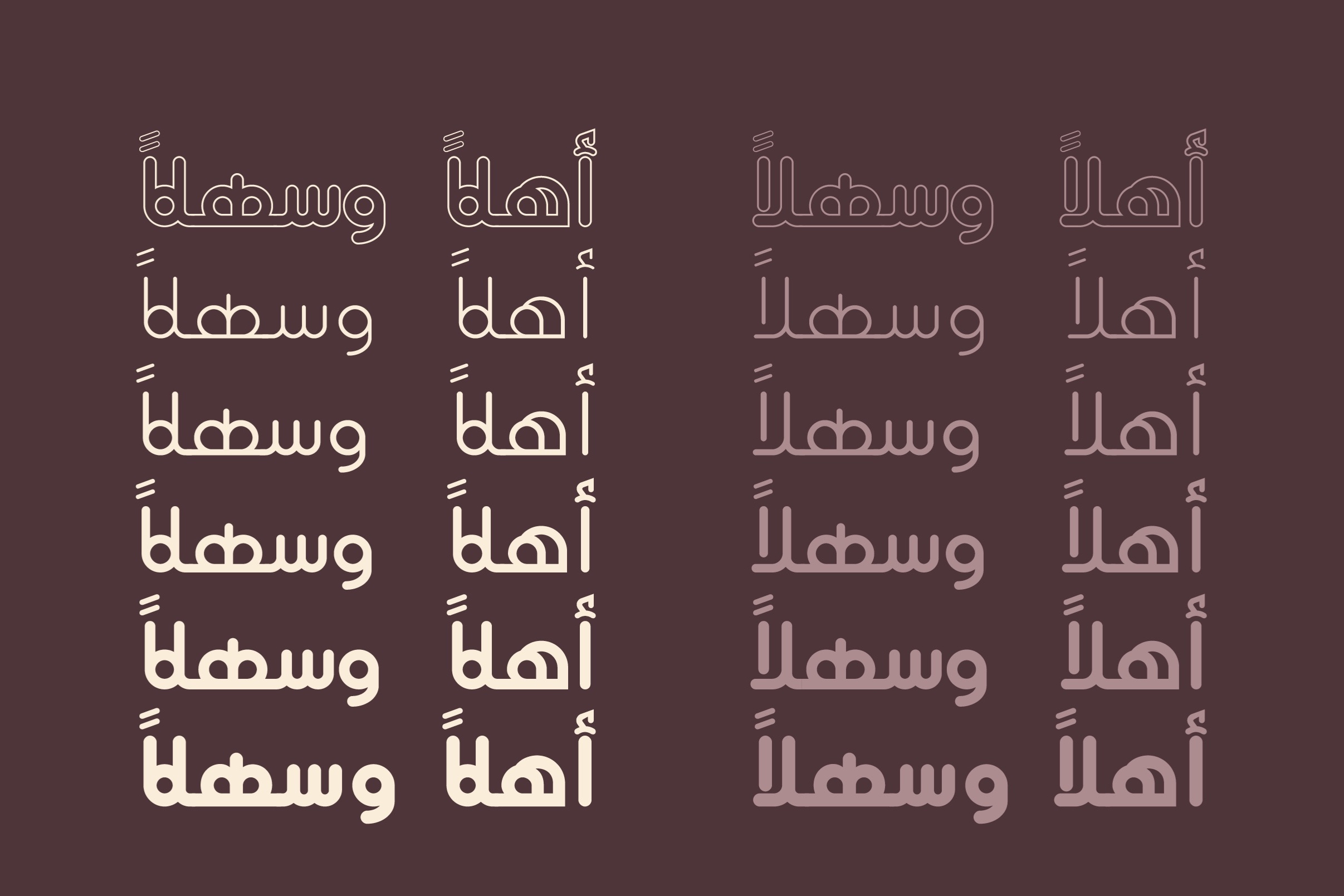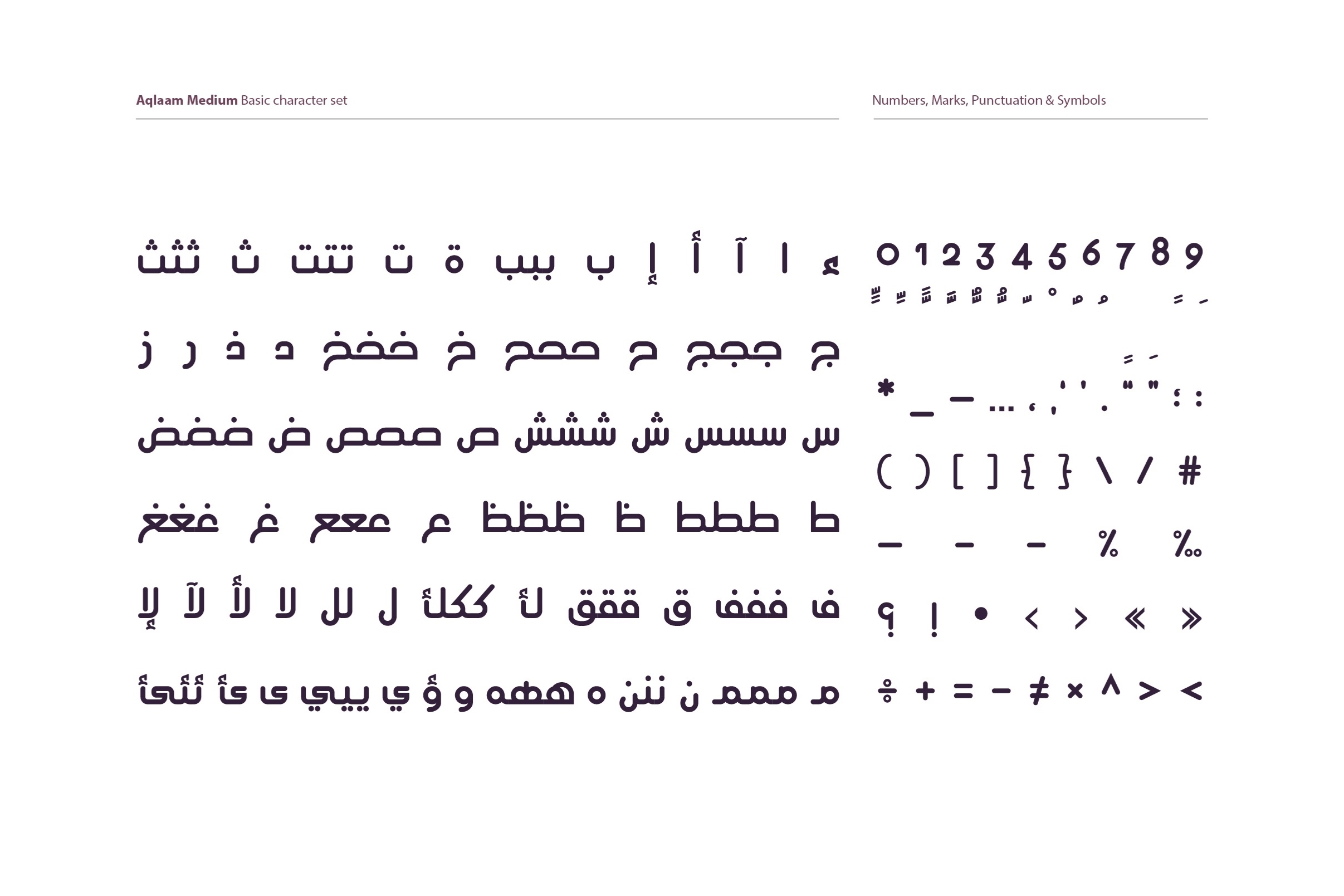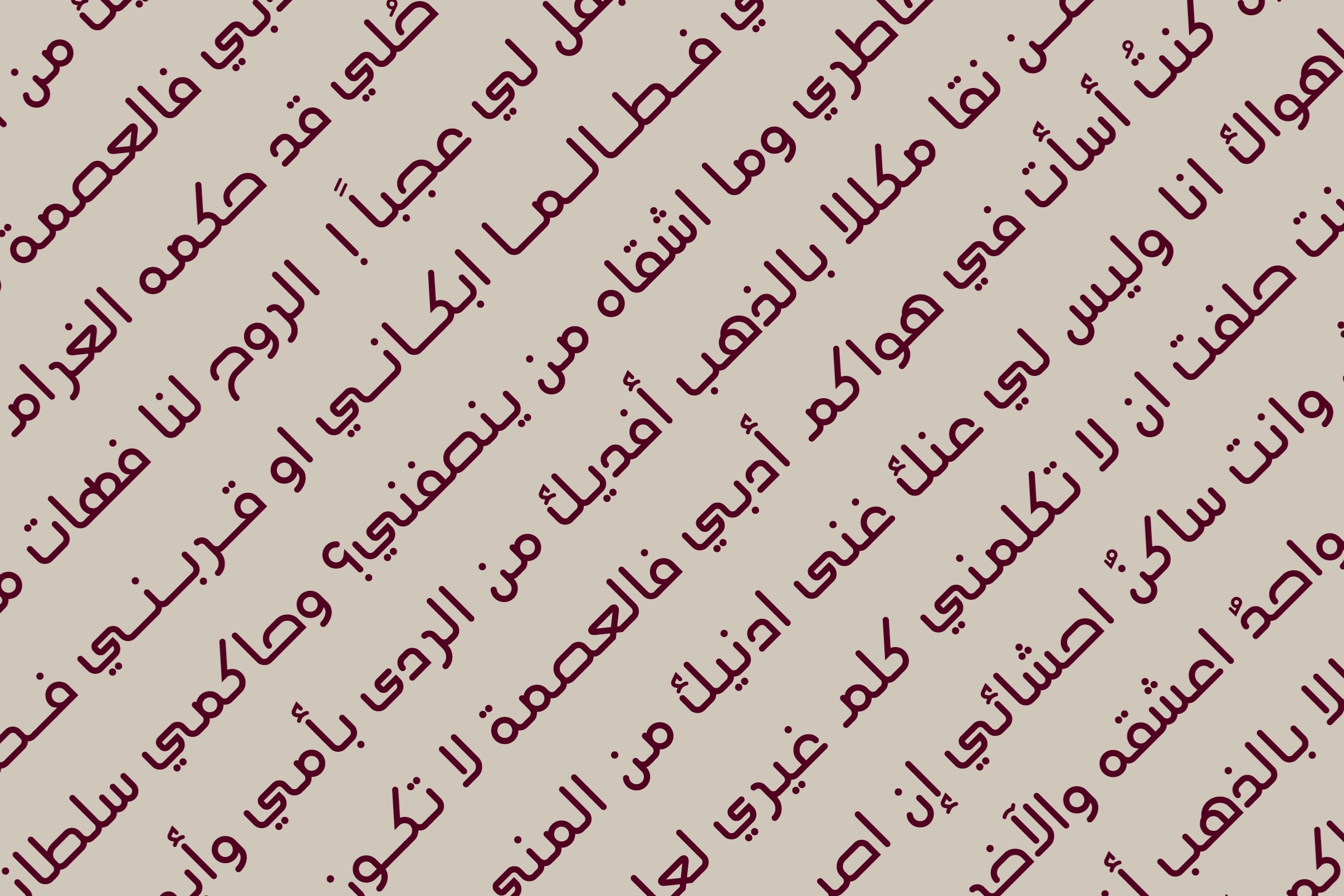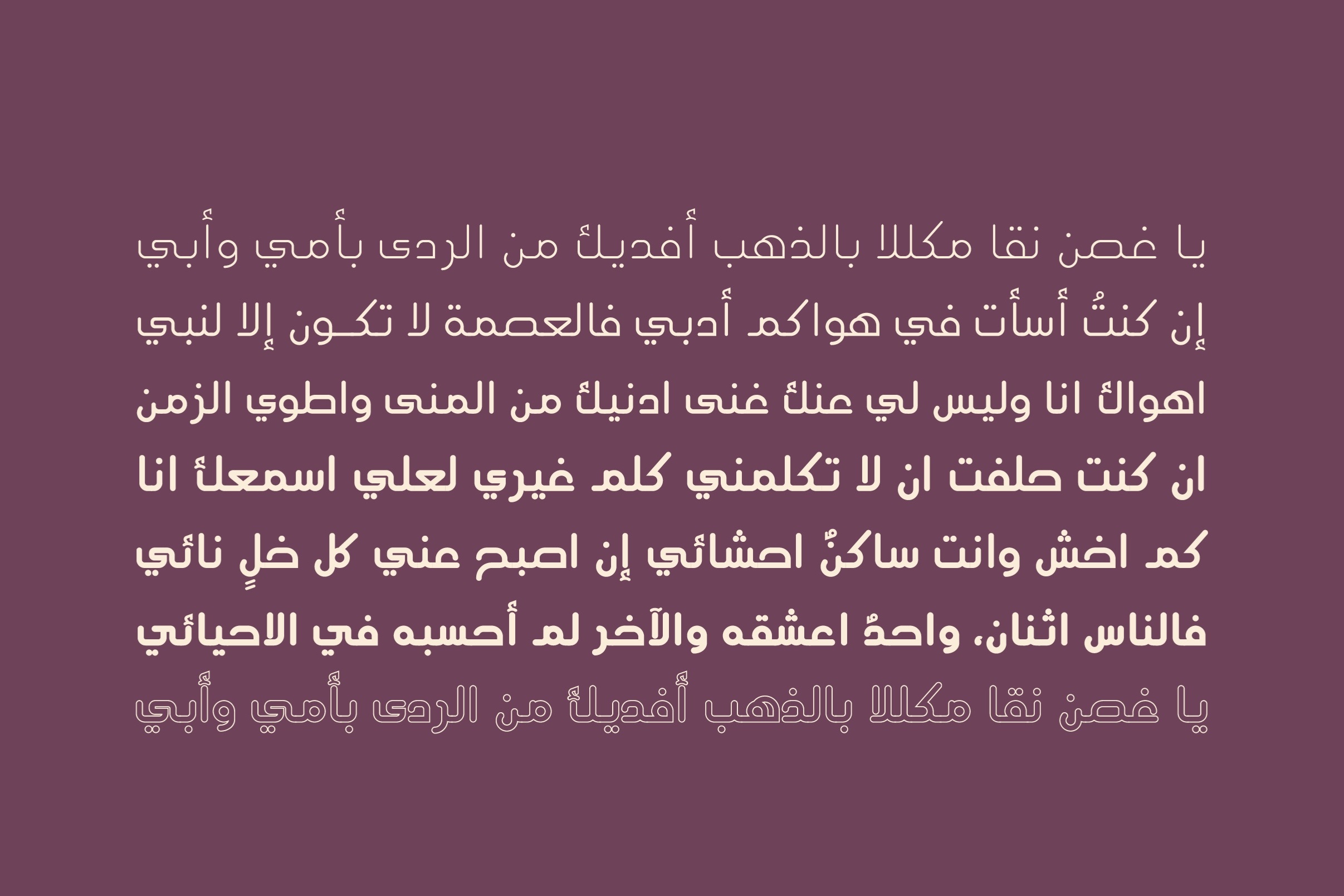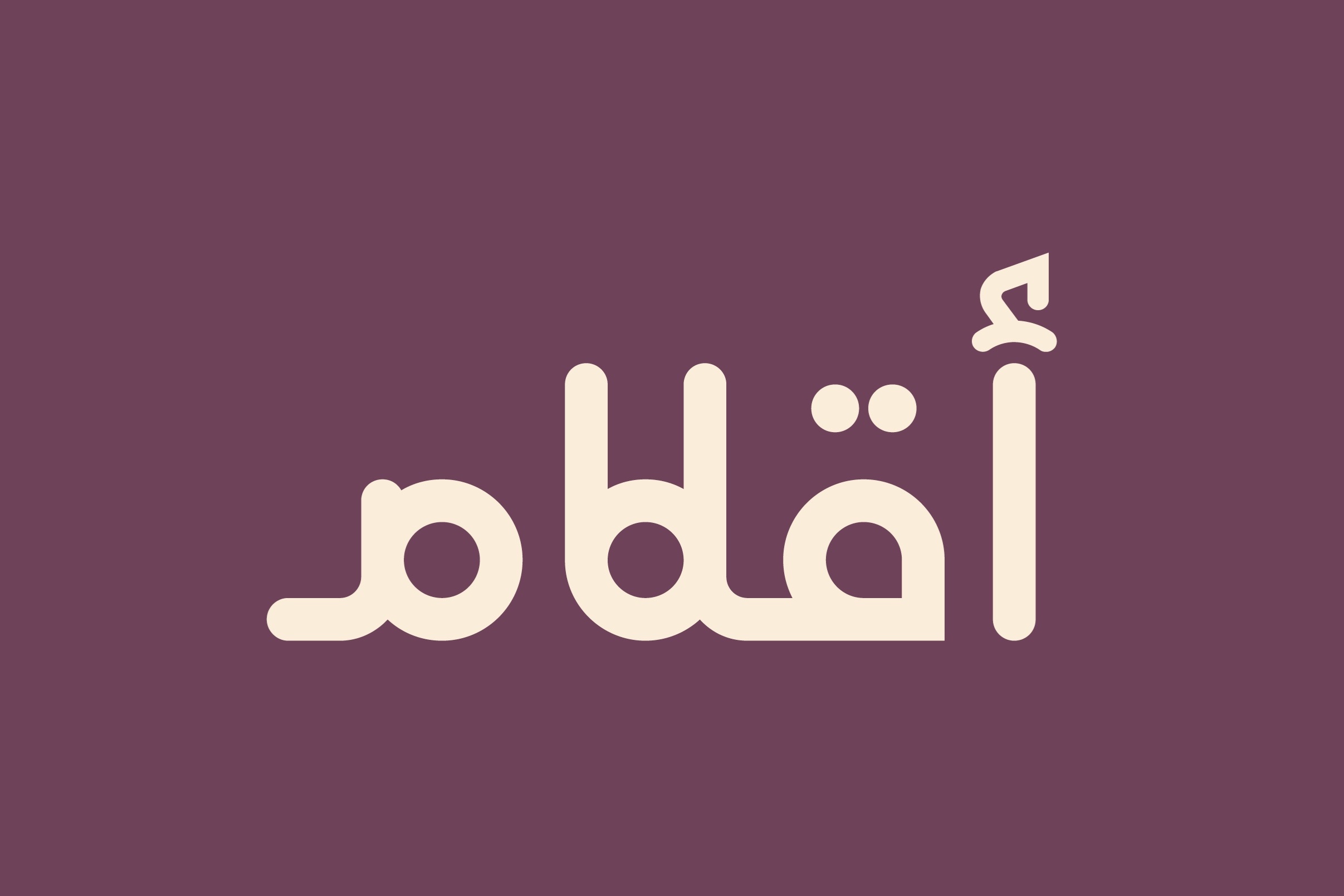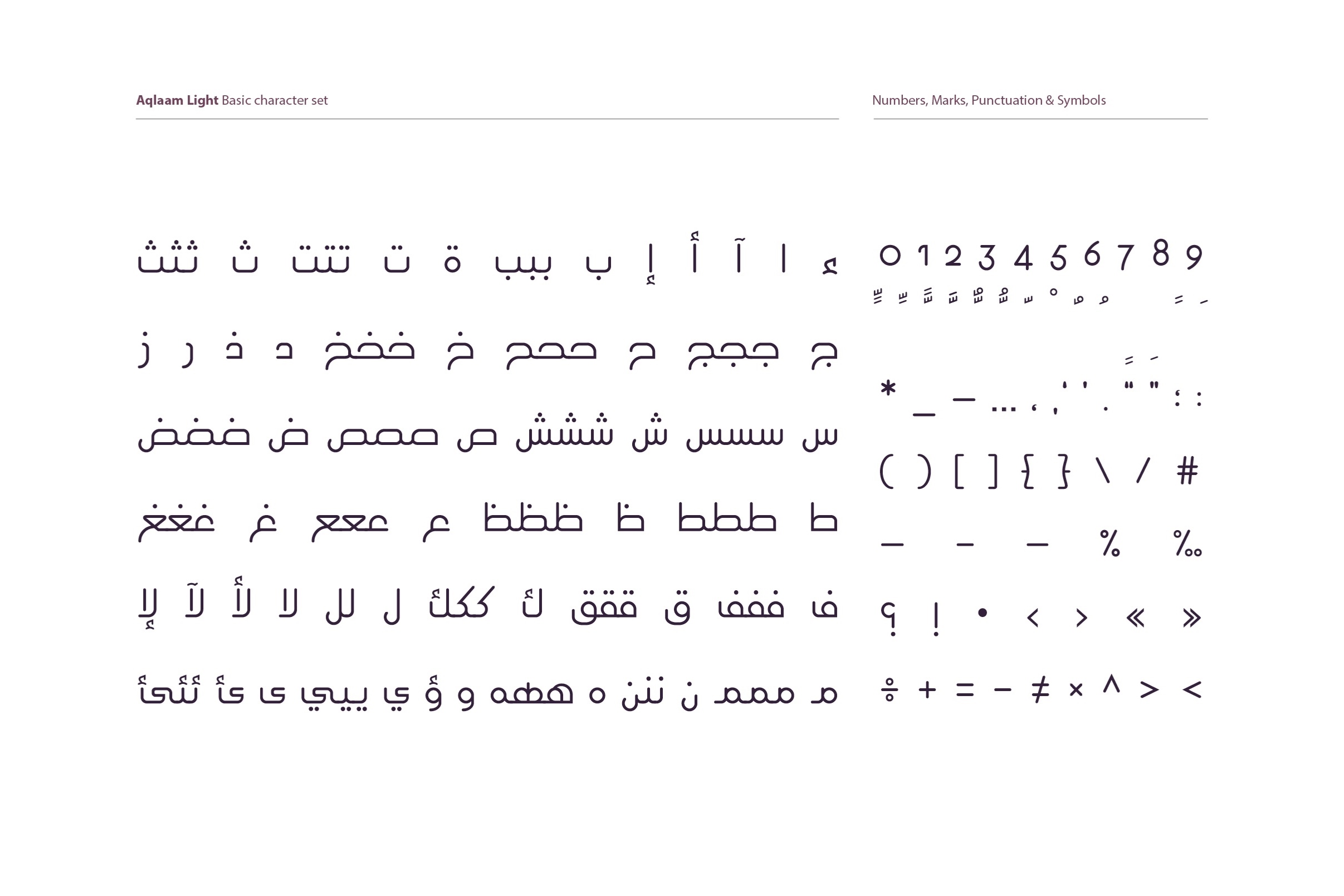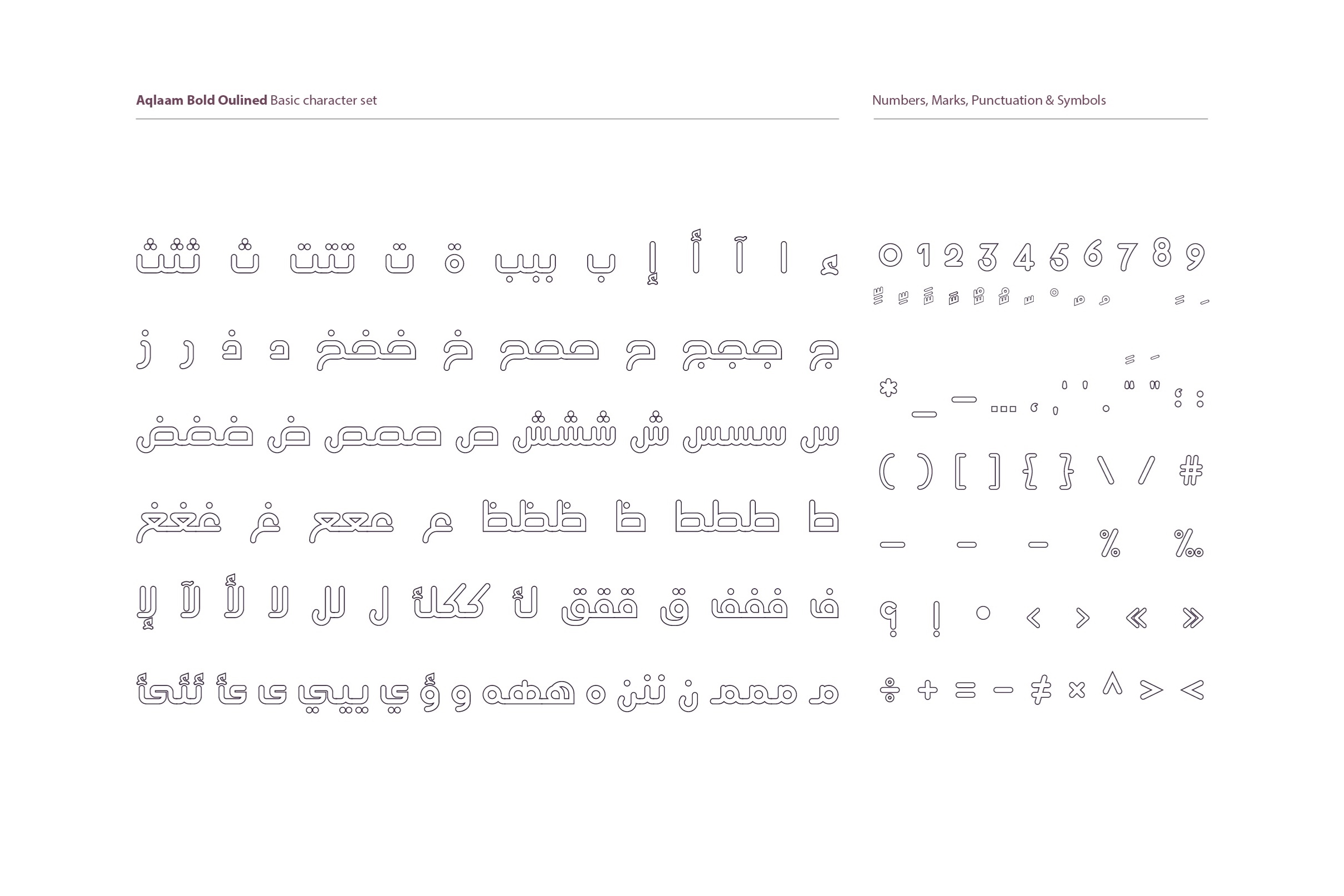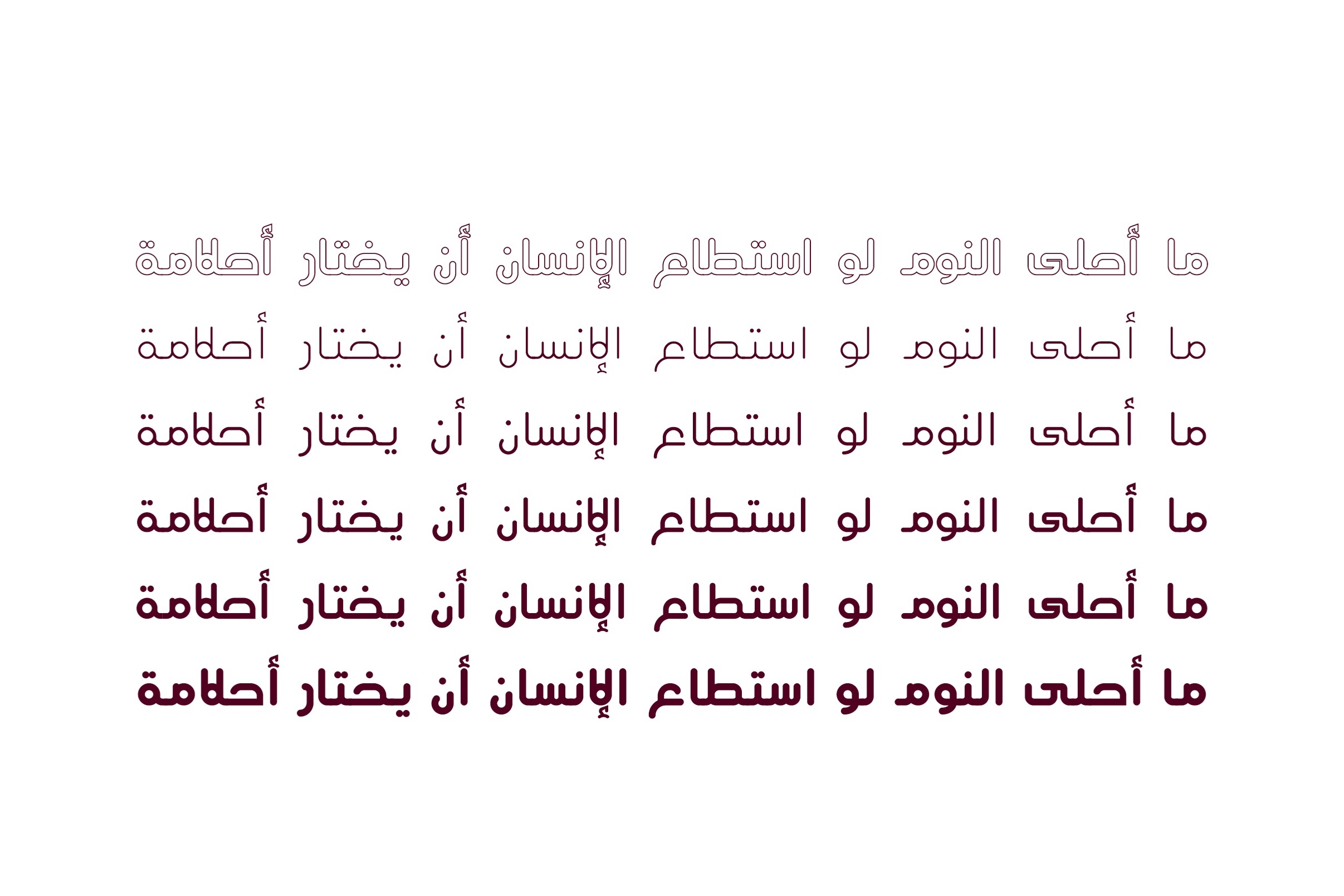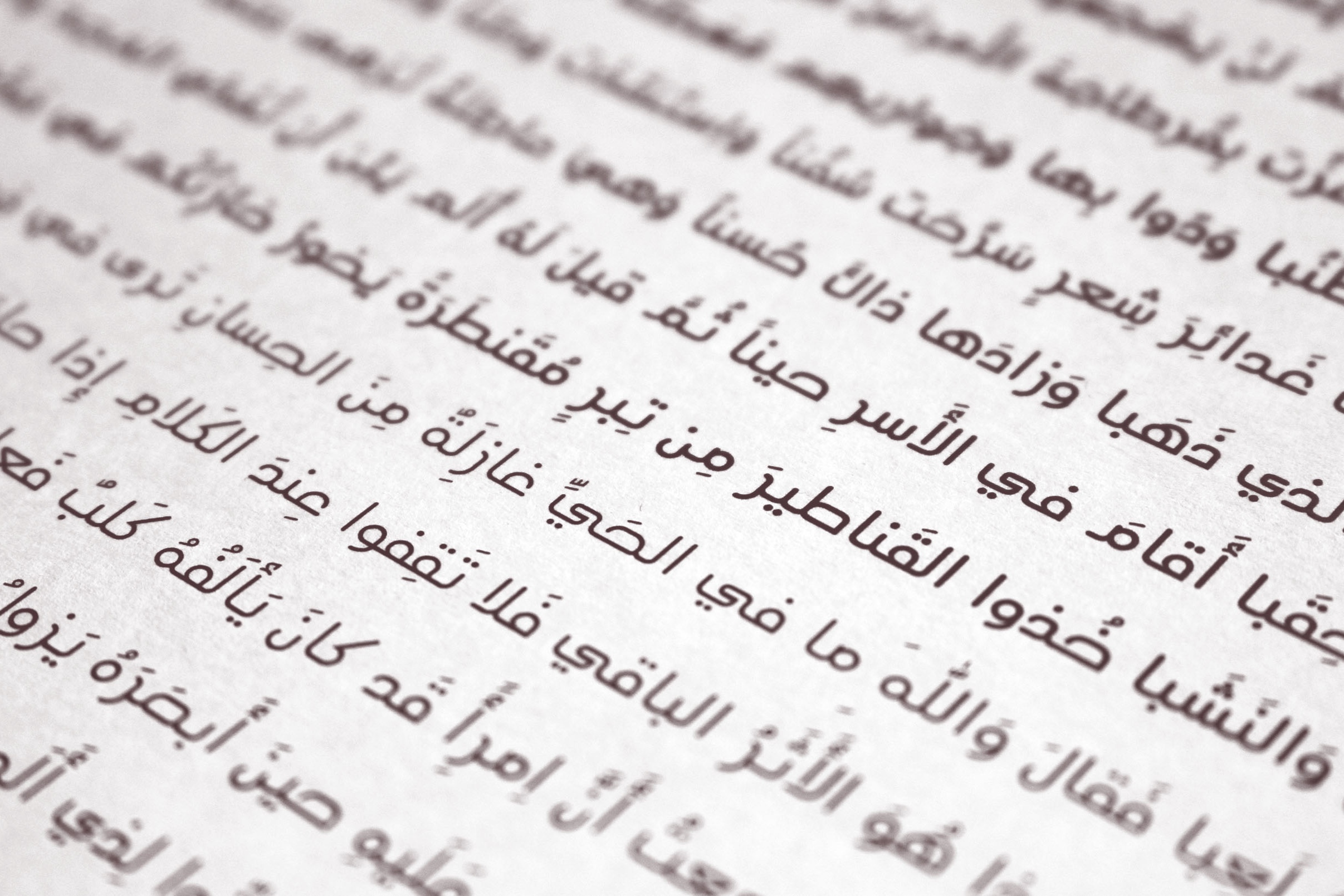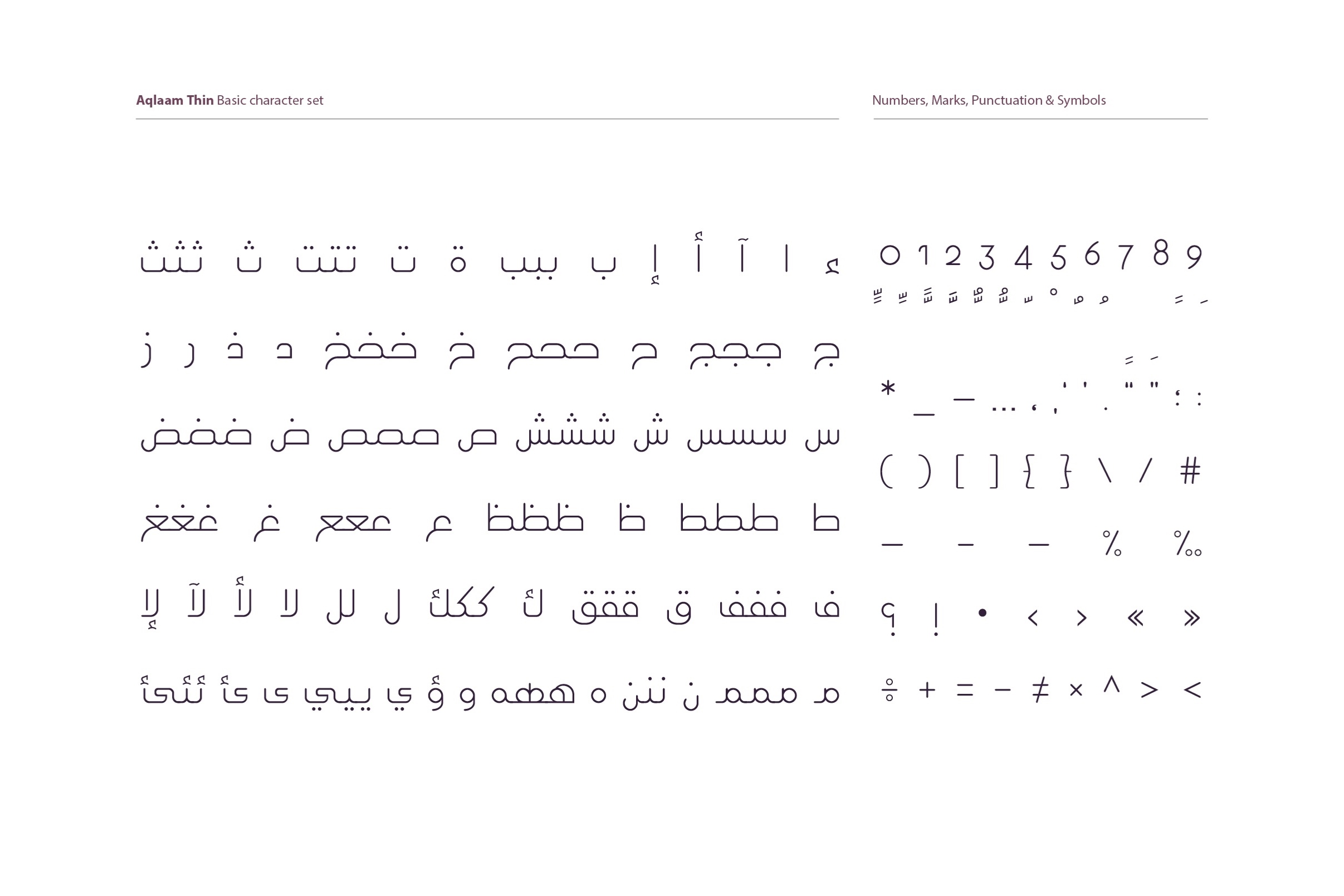
Aqlaam - Arabic Typeface
Mostafa Abasiry
Aqlaam is an Arabic typeface distinguished by its rounded letterforms. Designed primarily for public advertising and publishing, it offers six distinct weights: thin, light, regular, medium, bold, and outlined bold.
Thin, light, regular, medium, bold, and outlined bold
270+ Characters